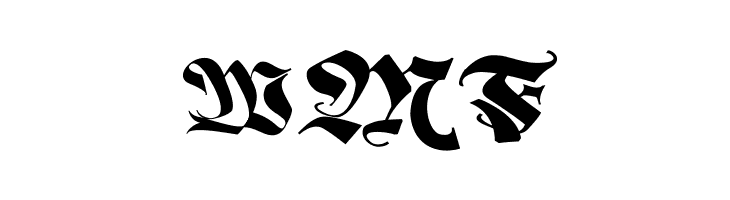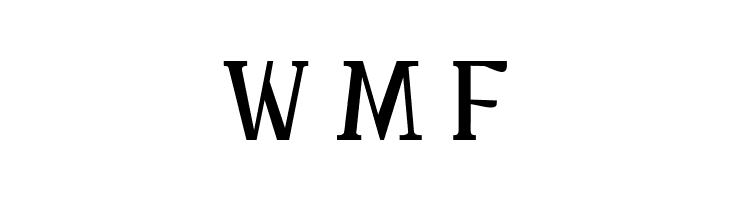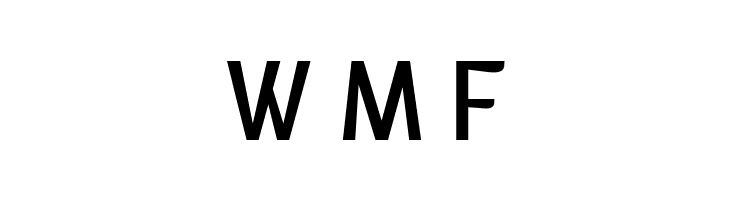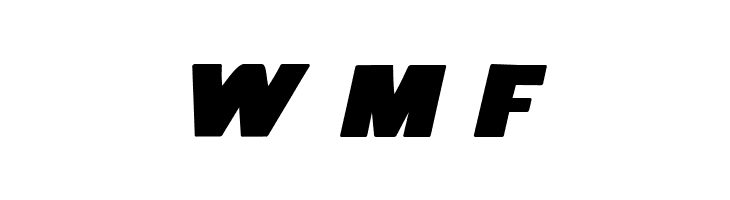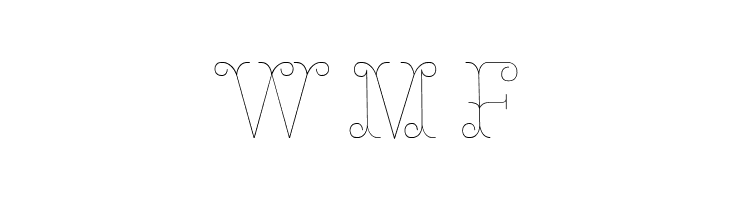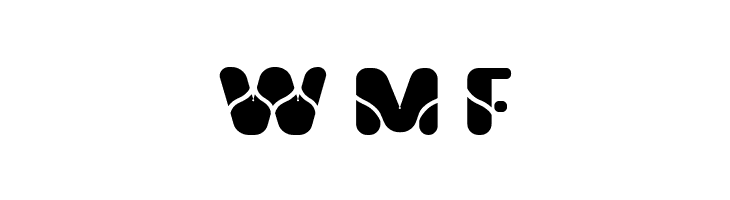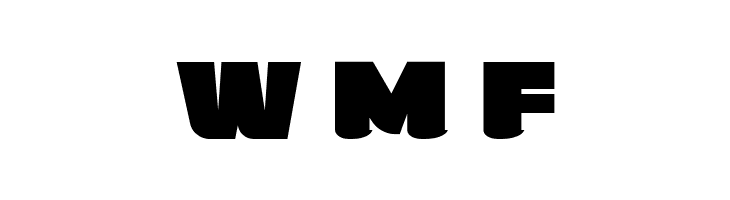
A bold, intricate Blackletter font with ornate, angular letterforms.
A bold, impactful font with thick strokes and a modern-retro style.
A bold serif font with a classic yet modern aesthetic.
A modern sans-serif font with a slightly condensed style and medium contrast.
A bold, dynamic font with thick strokes and a slight slant.
An elegant, light font with intricate curls and flowing lines.
An intricate, gothic Blackletter font with elaborate, angular designs.
A bold, decorative font with unique cut-out patterns and rounded edges.
A bold, heavy font with a modern and impactful design.
A bold, dynamic font with thick strokes and a slight slant.
An intricate and gothic Blackletter-style font with sharp, angular strokes and elaborate flourishes.